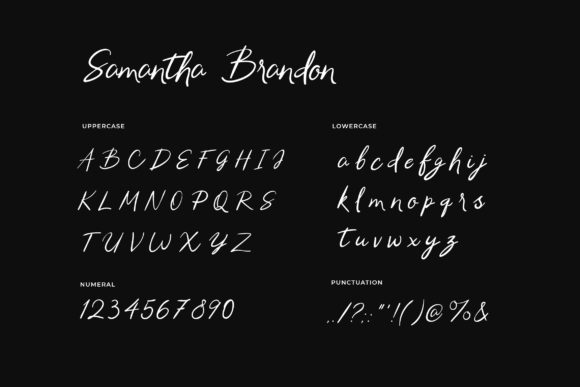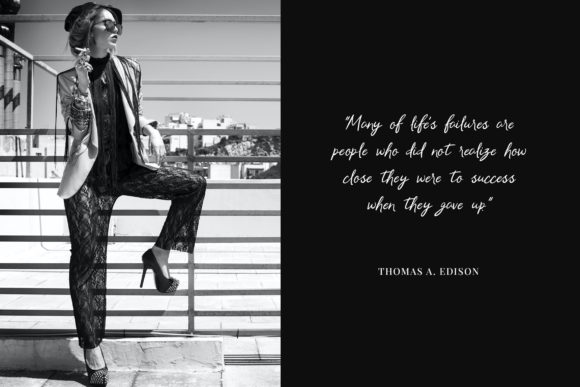
Samantha Brandon Font
db-ku.com - Script & Handwritten -- Samantha Brandon is an elegant script font, that features a very delicate and classy look. Not too thin and not too thick, balanced and varied, this font was designed to enhance the beauty of your projects.